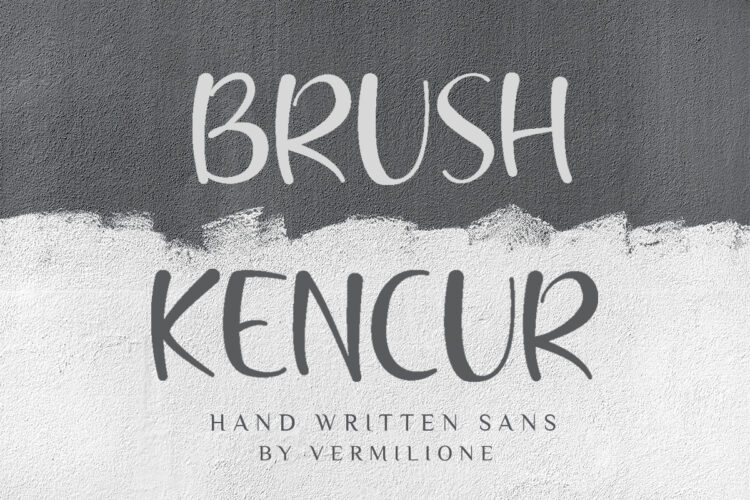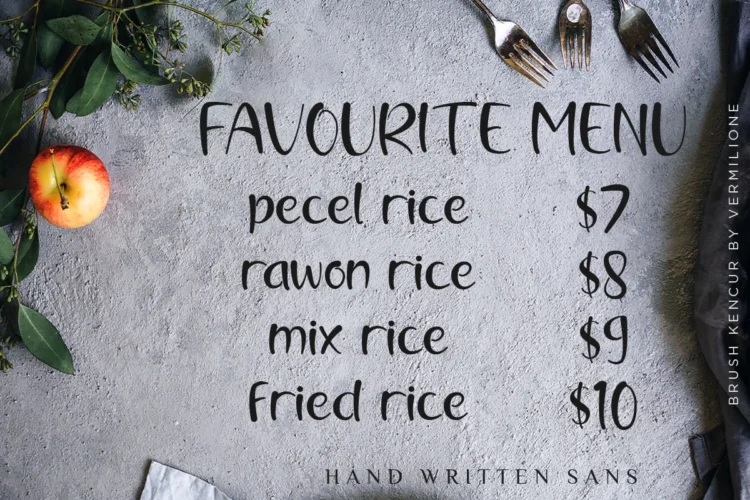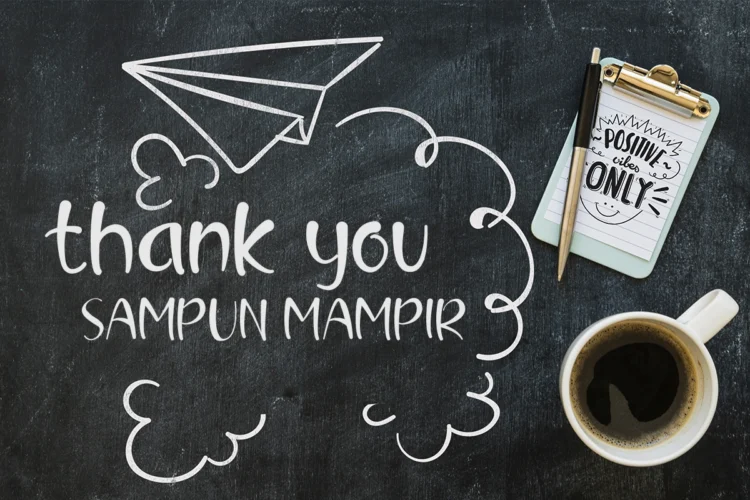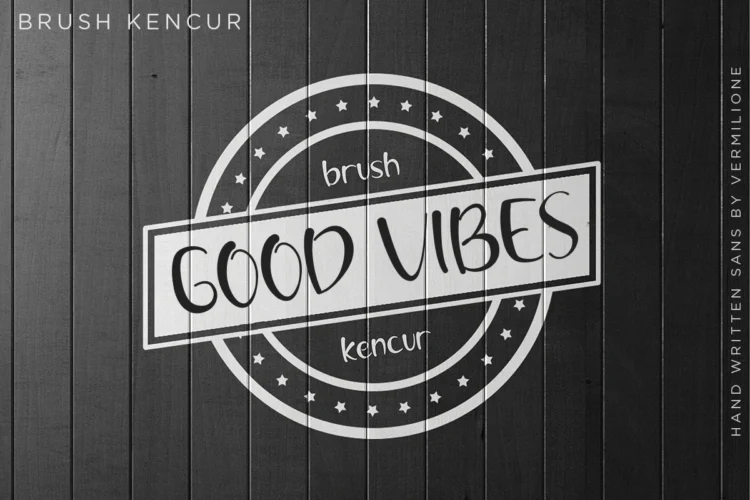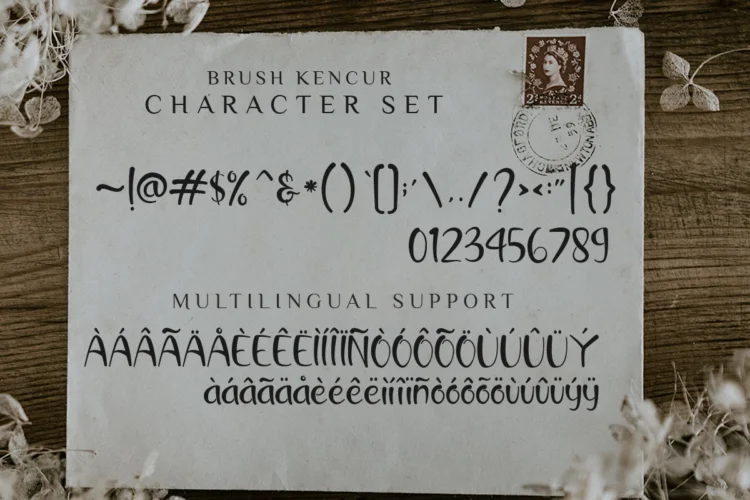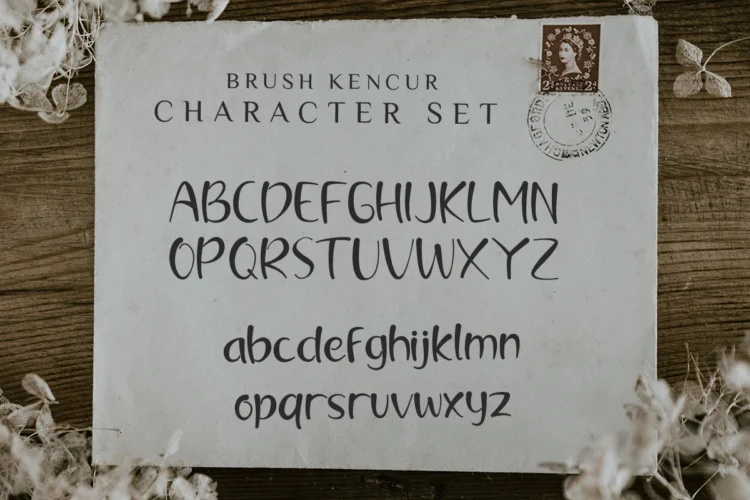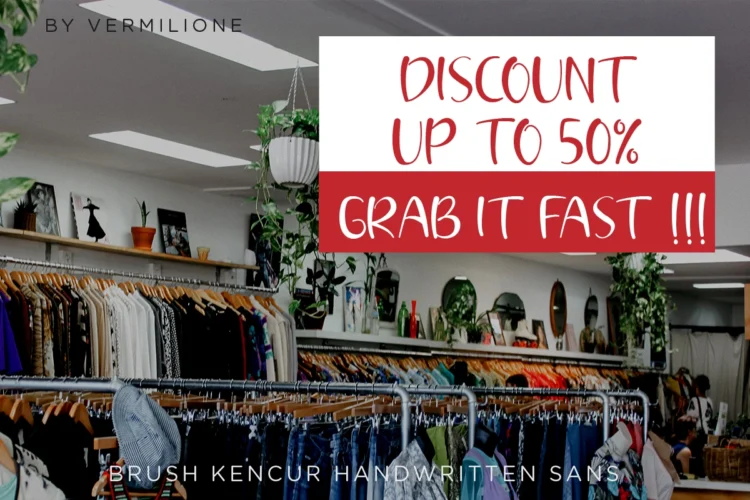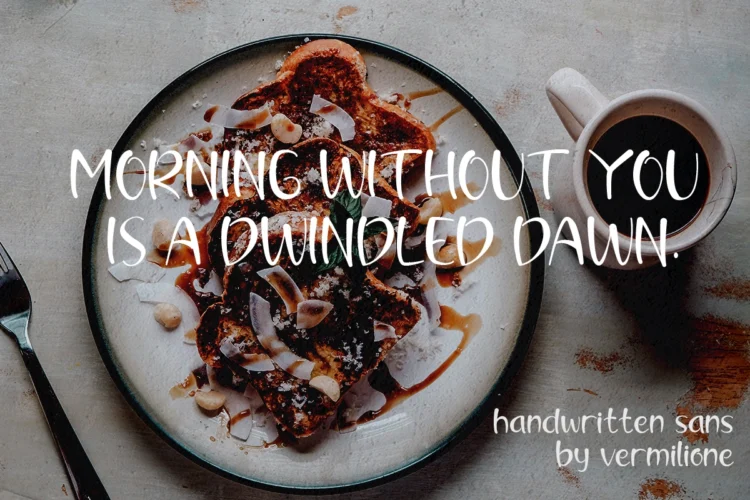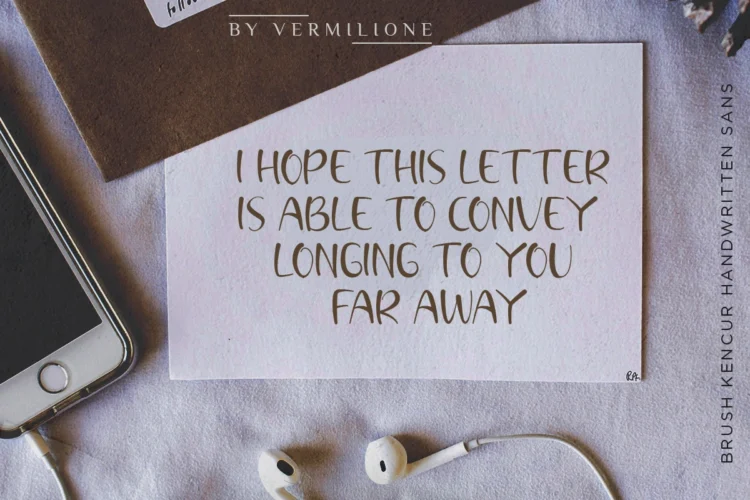
Brush Kencur
Brush Kencur is doodle typeface perfect for any fun quirky design work! This font can be used for anything such as Logo, Restaurant menu, T-Shirt designs, phone cases, greeting cards, quotes, restaurant logo, invitations, mugs and so much more! Get creative!